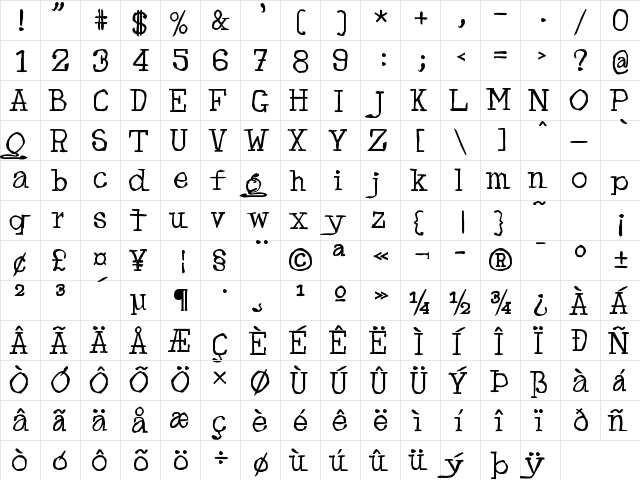
zai Elevator Out Of Order Regular
| Foundry | ZAI |
| Designer | Tomasz Skowroֳki |
Design Context for zai Elevator Out Of Order Typeface
zai Elevator Out Of Order takes a measured approach to typography — its balanced proportions and neutral character make it a reliable workhorse for both digital and print work.